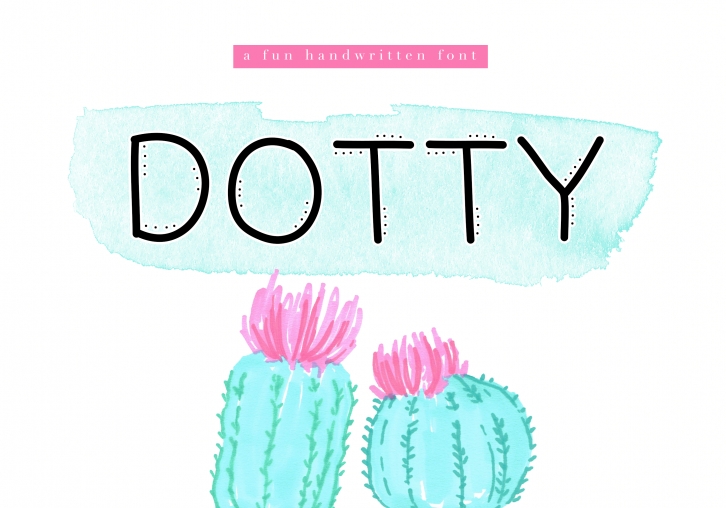
Dotty is a trendy and unique font with an authentic style. It was designed by KA Designs and it's a great choice for creative people who need such a font. It was released on May 13, 2018 and the file size is 9.26 MB. Dotty will add an organic vibe to any design idea!